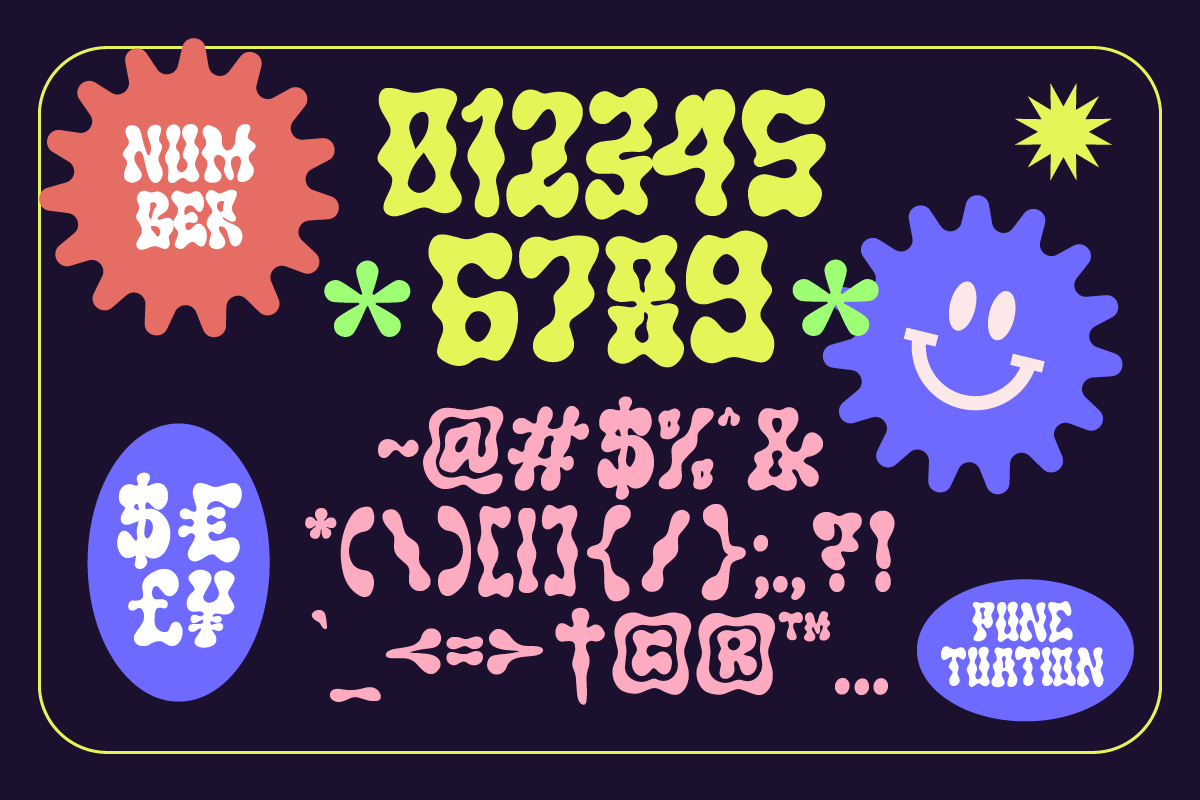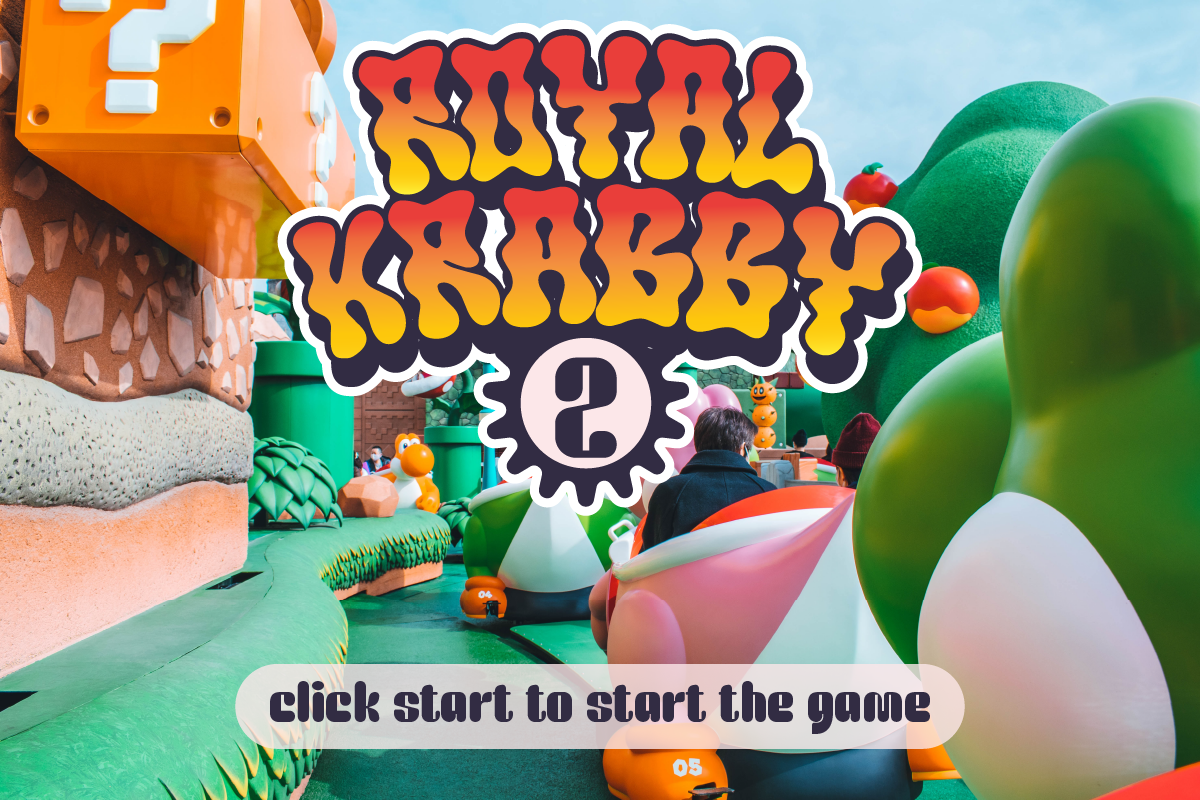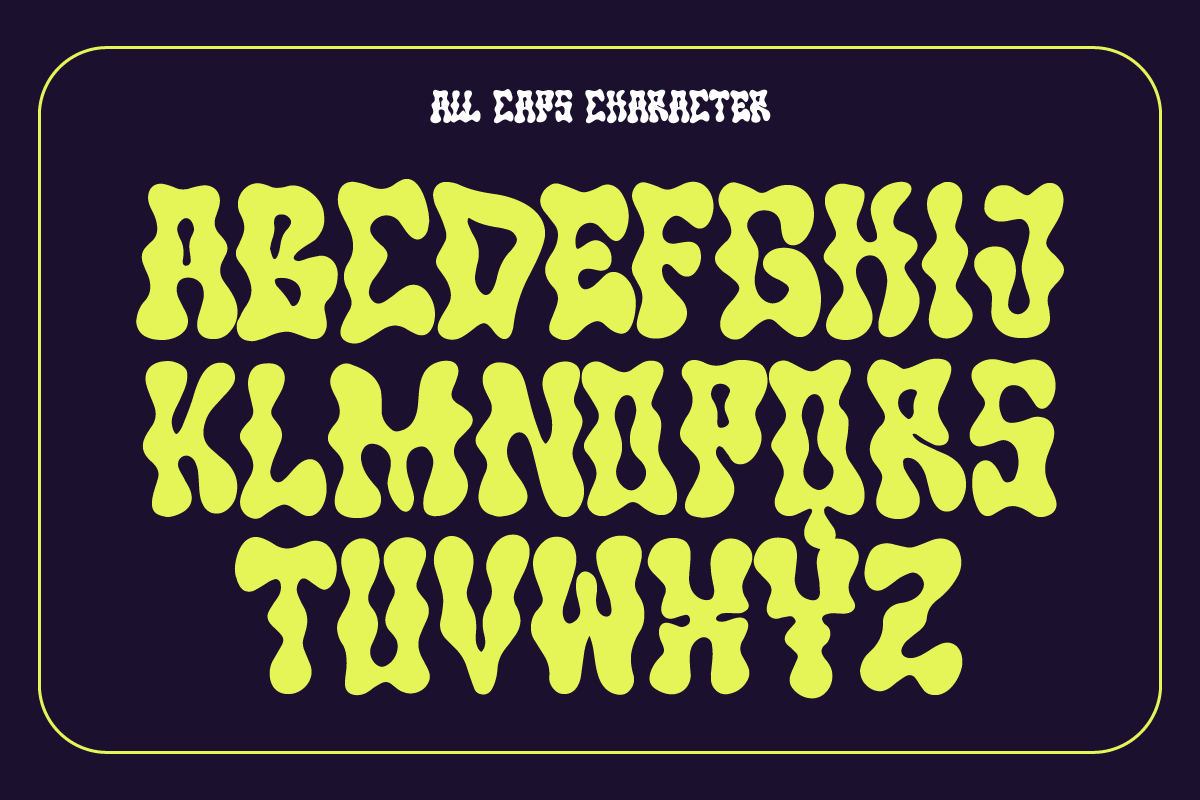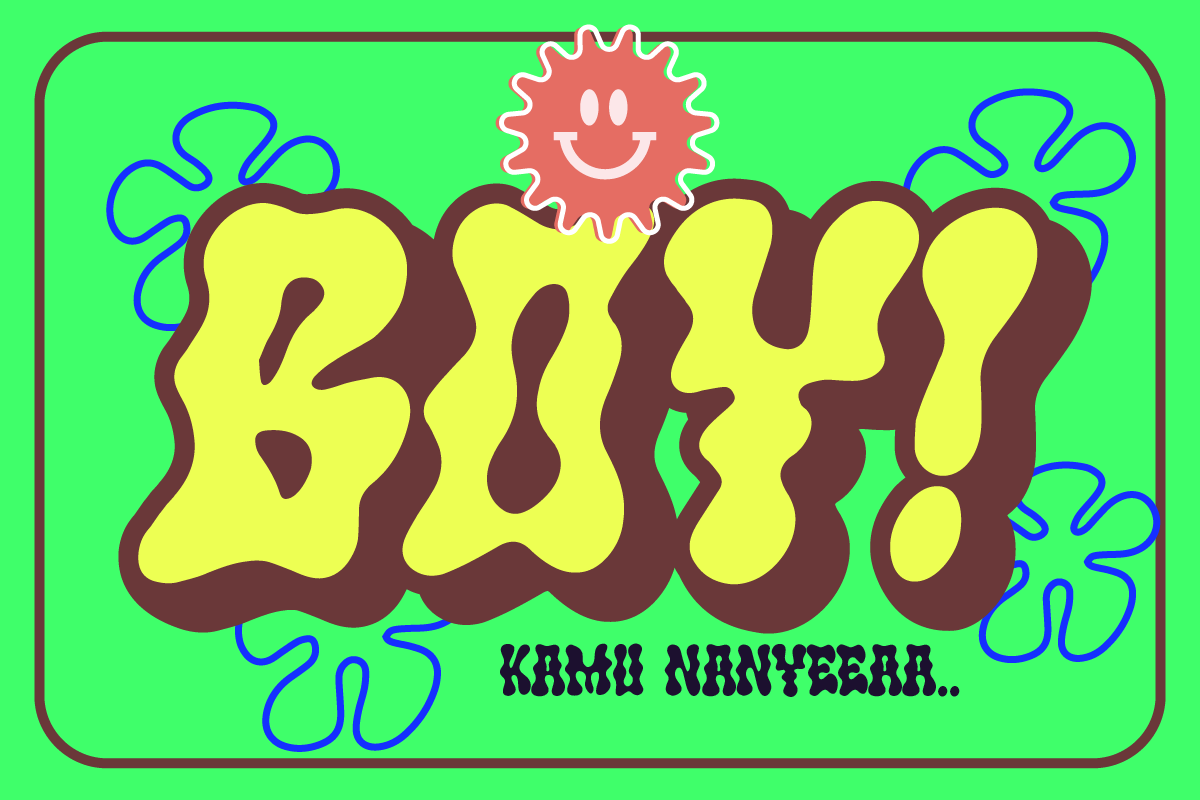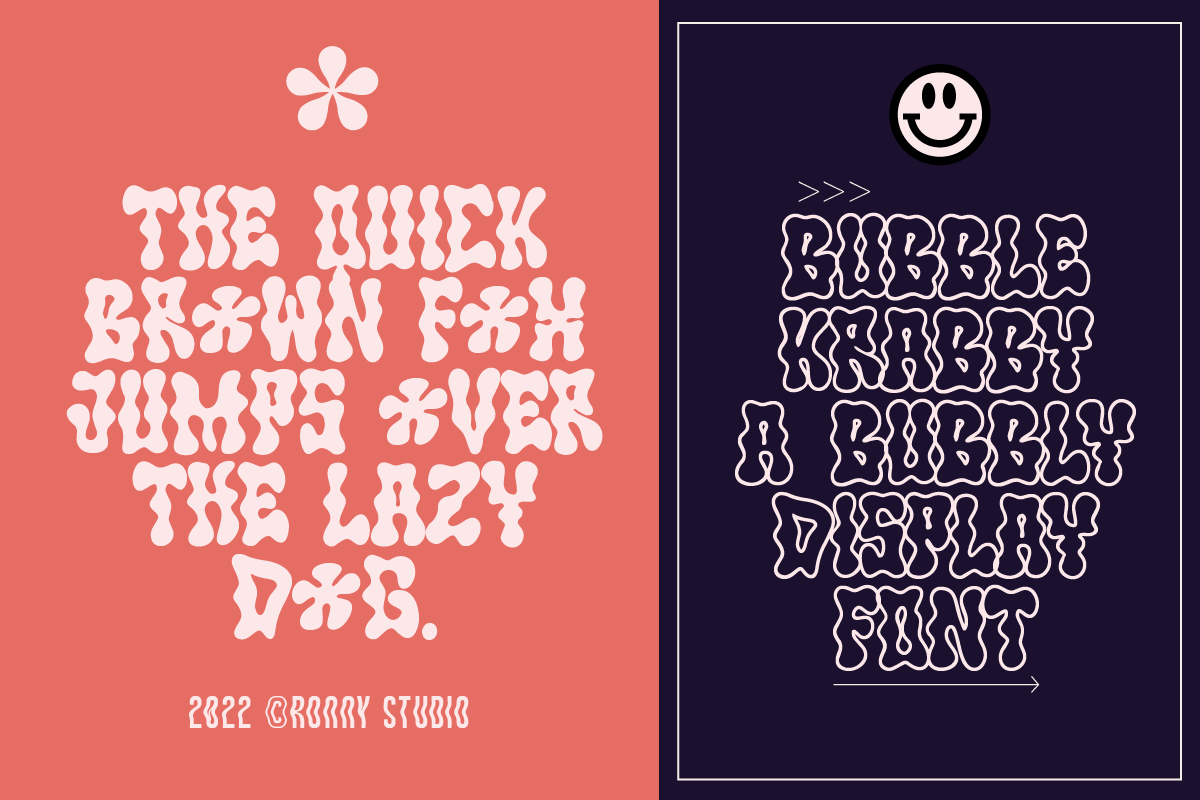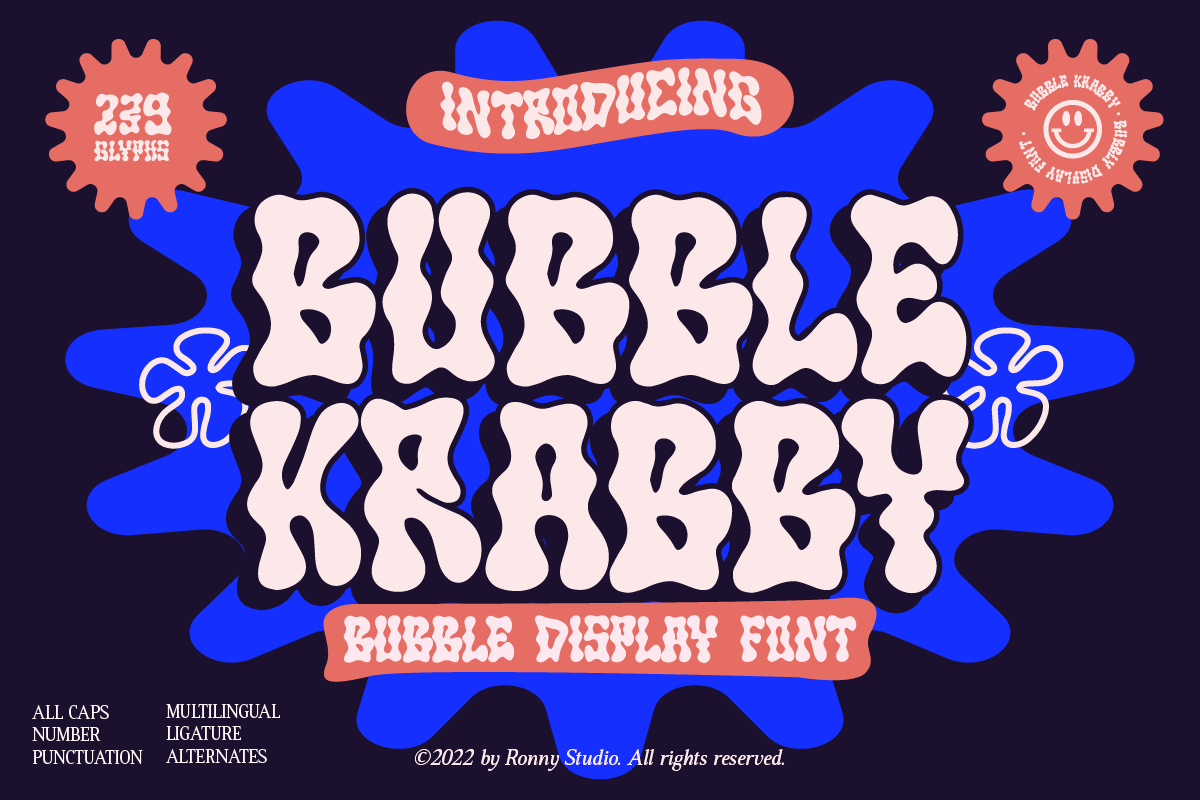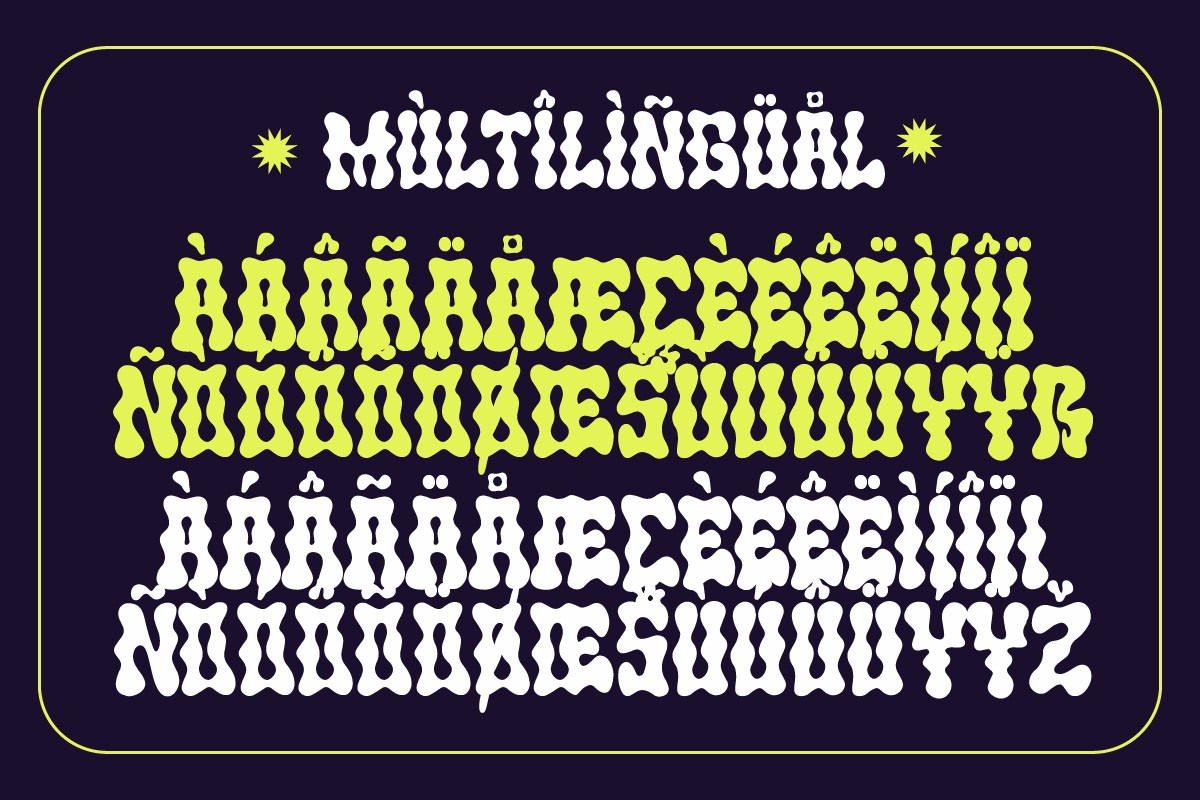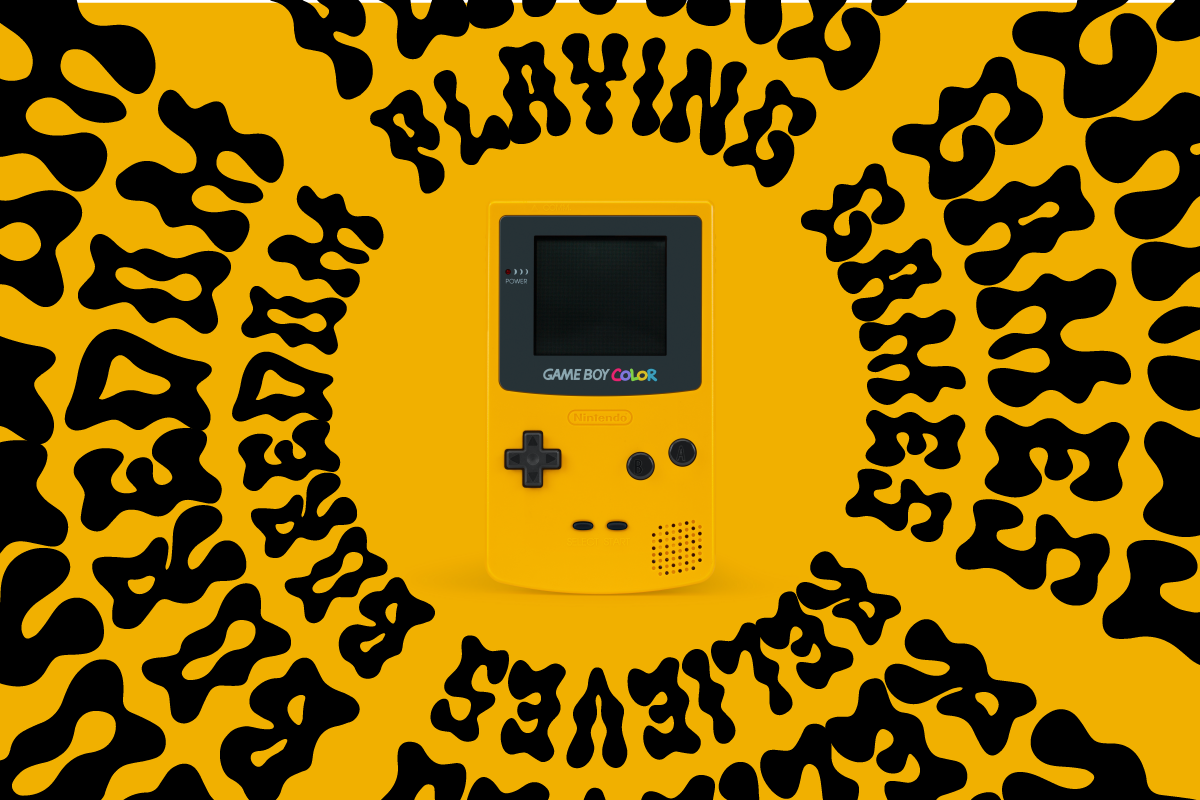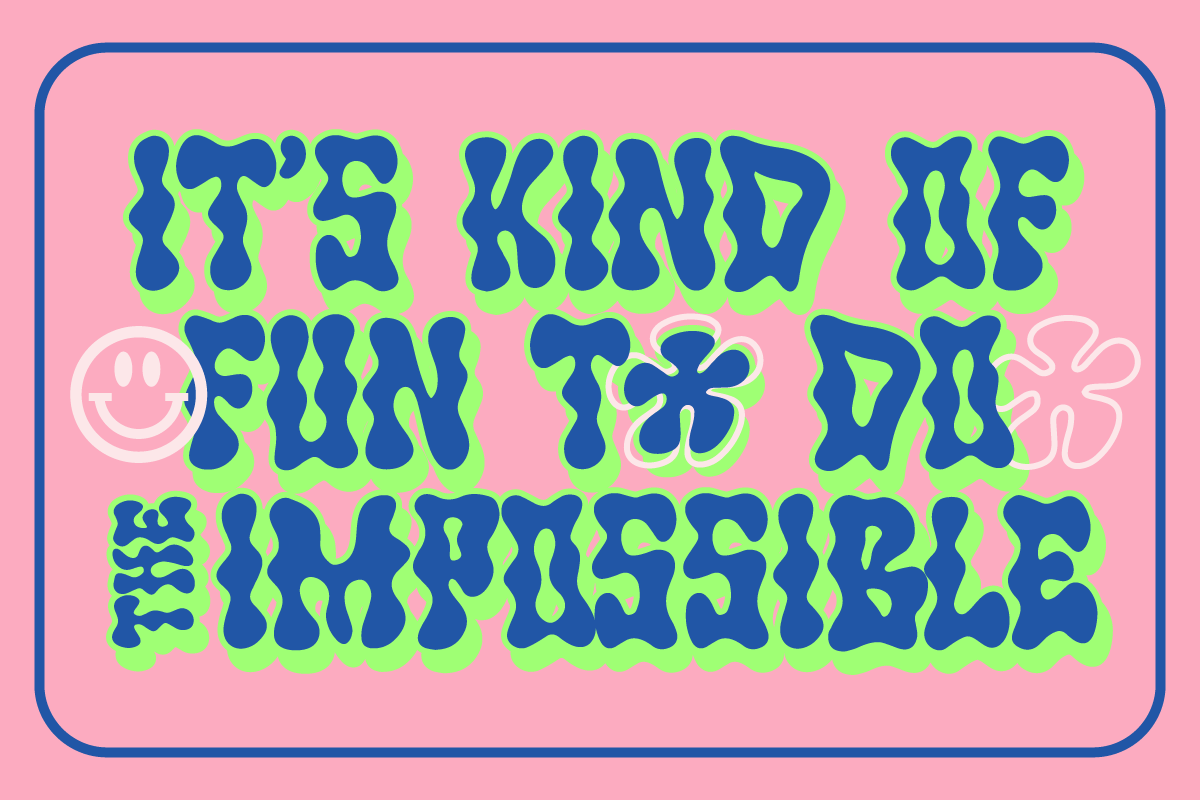
Bubble Krabby it's retro, bold, and playful, really ties together your piece to give it that retro feel. This is font perfect for designers who are looking to add a psychedelic acid graphics contemporary hand-done touch to their projects. be it posters, magazines, Instagram, Logo, Game or branding.
- Lowercase & Uppercase ( All Caps )
- Alternate & Ligature